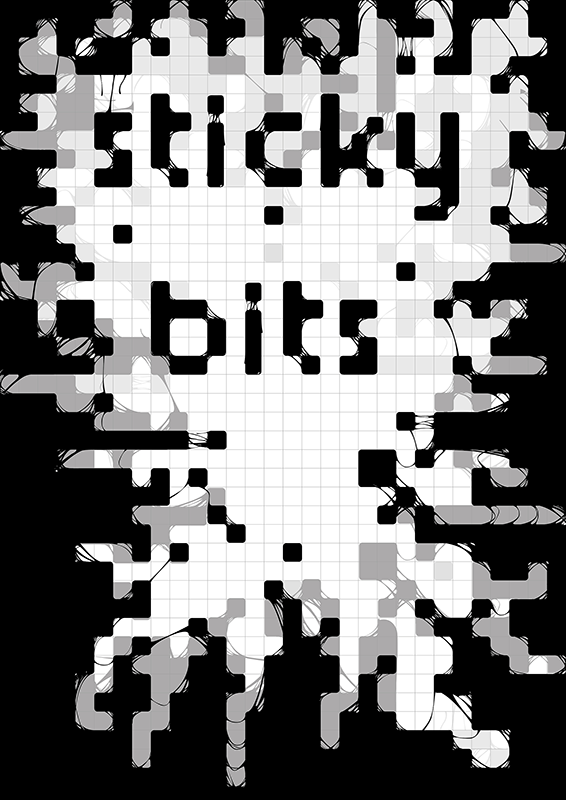
Note by Lander De Wandel | |
This is a font I made for my class Graphic Design (third bachelor). It only contains the lowercase, and is best used in large point size. It is also very readable in smaller pt size, though the sticky effect is lost that way. The shape is based on another font i have uploaded, which goes under the name Pix. That font doesn't have the sticky effect, but it does contain both lower- and uppercase letters. Enjoy! |